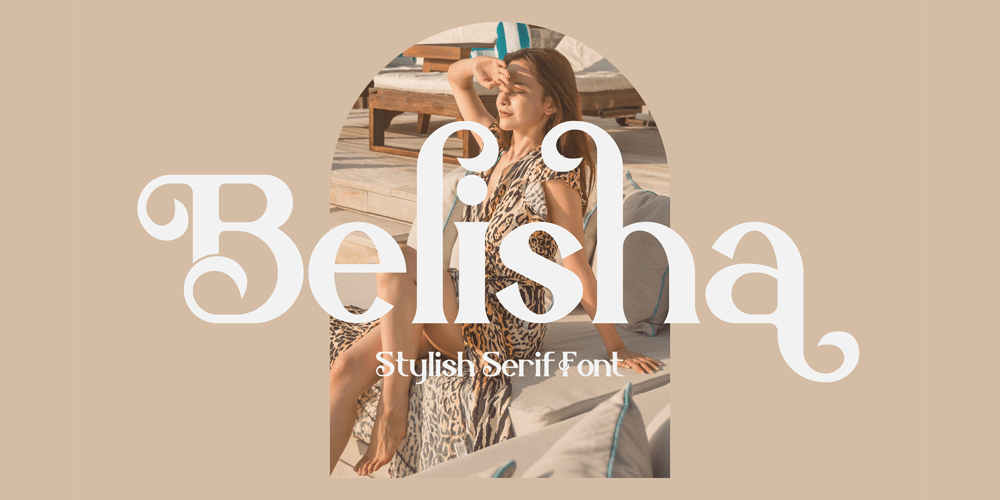
Belisha
Belisha font
Belisha Font Family was designed by Heru Utama Putra and published by Letterena Studios. Belisha contains 2 styles and family package options. Belisha is a lovely and distinct serif font. It will elevate a wide range of crafting ideas, from cards, to branding, labels and much more. This font is PUA encoded which means you can access all glyphs and swashes with ease!